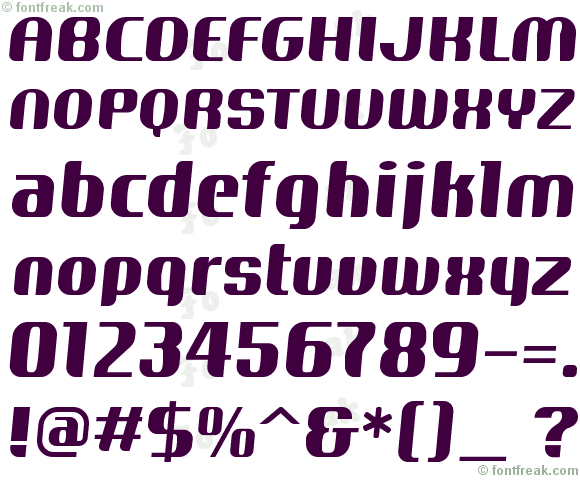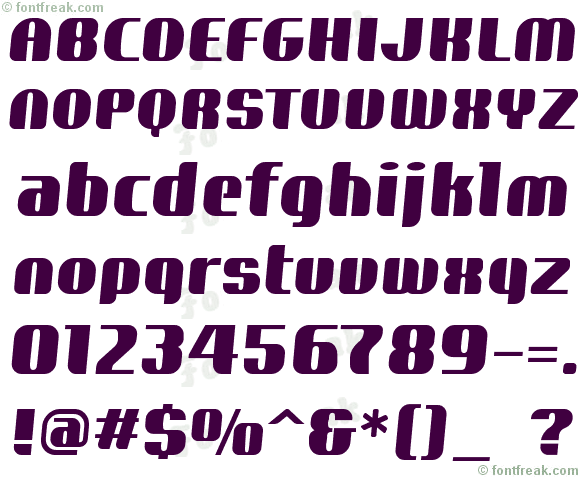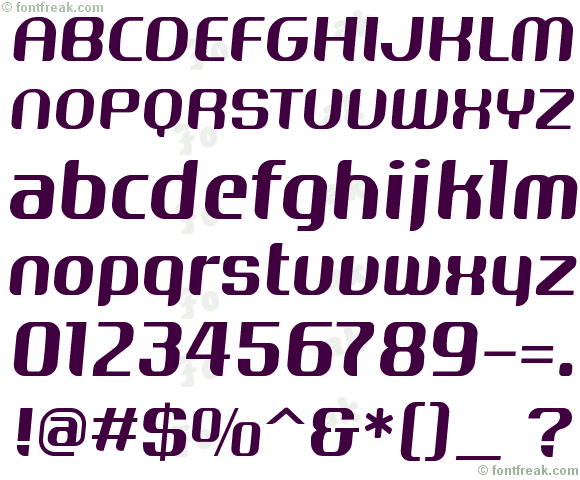
The Camellia font, designed by Masato Shimojima and released by C-font, is a striking display typeface that beautifully blends elegance with versatility. This Freeware font family includes regular, bold, and extra bold styles, making it a valuable addition to any designer's toolkit. Characterized by its smooth, flowing strokes and balanced spacing, Camellia offers a visually appealing contrast that draws attention without overwhelming the viewer. The design features soft curves and refined edges, giving it a sophisticated yet approachable feel.
Camellia is particularly well-suited for various creative applications. Its refined aesthetics make it an excellent choice for wedding invitations, where elegance is paramount. Additionally, the font works beautifully on movie posters, adding a touch of drama and flair that captures the audience's interest. Restaurant menus can benefit from Camellia's inviting presence, enhancing the overall dining experience with its stylish appearance. Content creators will also find this font valuable for branding and promotional materials, as it conveys a sense of quality and attention to detail.
The target audience for the Camellia font includes graphic designers, small business owners, and content creators looking to elevate their visual communication. Its versatility ensures that it can be adapted to a wide range of projects, appealing to those who appreciate both style and functionality.
What sets the Camellia font apart is its unique blend of beauty and practicality. With its graceful design elements and multiple weights, it offers flexibility for various design needs. The Camellia font free download provides an opportunity for creatives to explore its potential without any financial commitment, making it accessible for all. Whether you’re designing a heartfelt invitation or an eye-catching poster, Camellia is sure to leave a lasting impression.